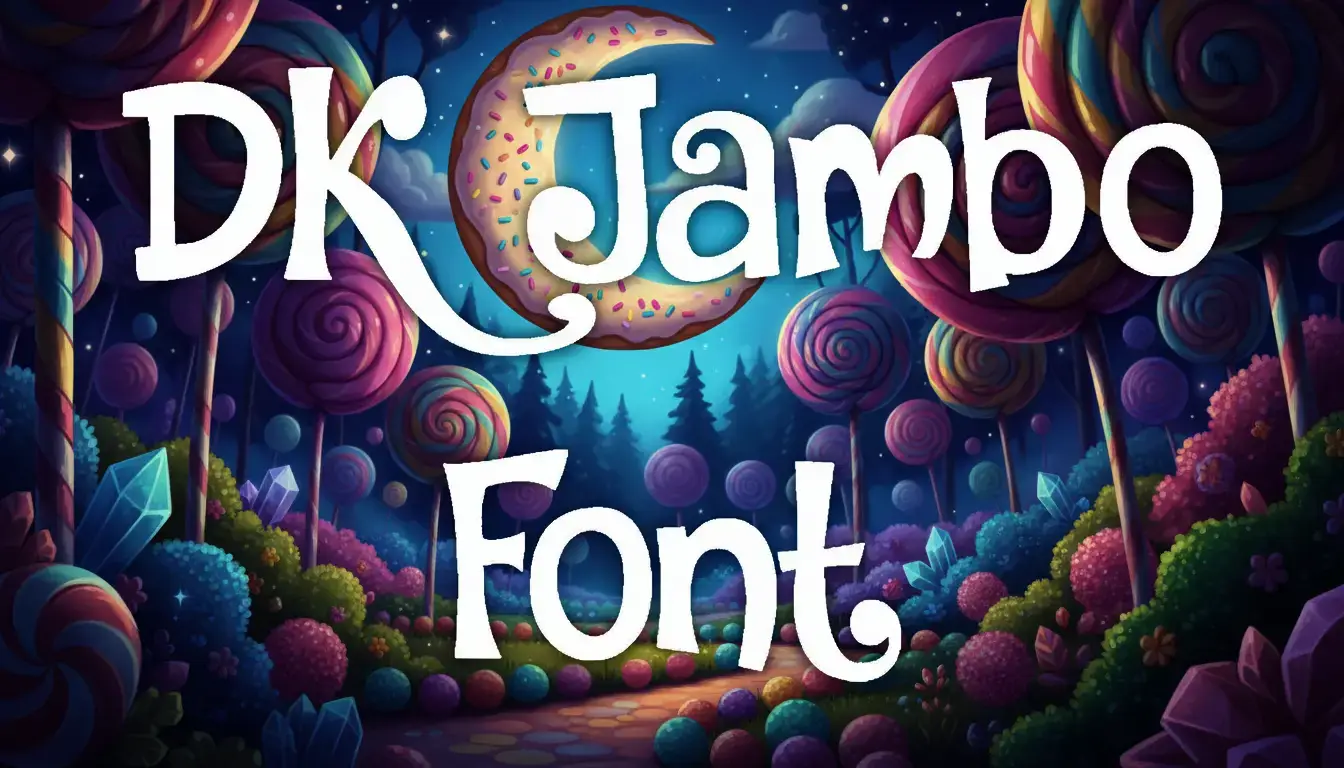
DK Jambo Font
DK Jambo
DK Jambo is a fancy font made by David Kerkhoff. It's a decorative display font with plenty of personality, made to grab attention. It's a free download, and you can try it with your own text in the preview above first.
- Designer: David Kerkhoff
What You Can Type With DK Jambo
You get every letter from A to Z in both cases and all the numbers from 0 to 9, which means DK Jambo can handle full sentences, dates and prices. Everyday marks like !, ?, @ and $ are there too. Thanks to its accented letters, it also works for Spanish, French, German, Portuguese and Italian, not just English.
Where DK Jambo Works Best
Think of DK Jambo for posters, logos and eye-catching headlines. Use it for one standout word or headline and let simpler fonts handle the rest.
Does DK Jambo support accented letters?
Yes. DK Jambo includes the accented letters needed for Spanish, French, German, Portuguese and Italian, so it works for more than just English.